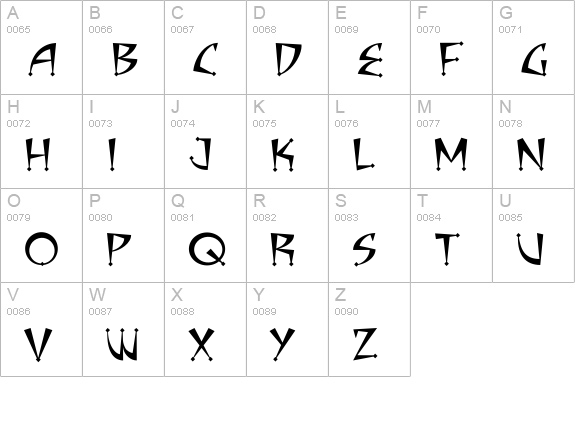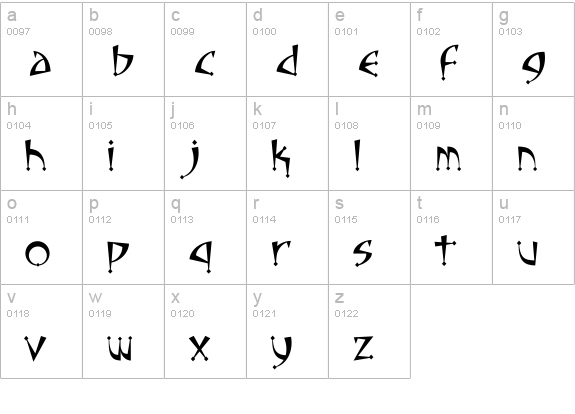
CCAdamantium-Talon Font Details
CCAdamantium-Talon font is a striking and sophisticated typeface that exudes power and elegance. With its sharp edges and bold lines, this font commands attention and adds a touch of modernity to any design project. Perfect for headlines, logos, and branding materials, CCAdamantium-Talon is sure to make a strong statement. Best of all, this font is available for free download at FontsMarket.com. Whether you're a designer looking to add a unique flair to your creations or a business owner in need of a distinctive font for your branding, CCAdamantium-Talon is the perfect choice. Download it today and let your creativity soar with this exceptional font.